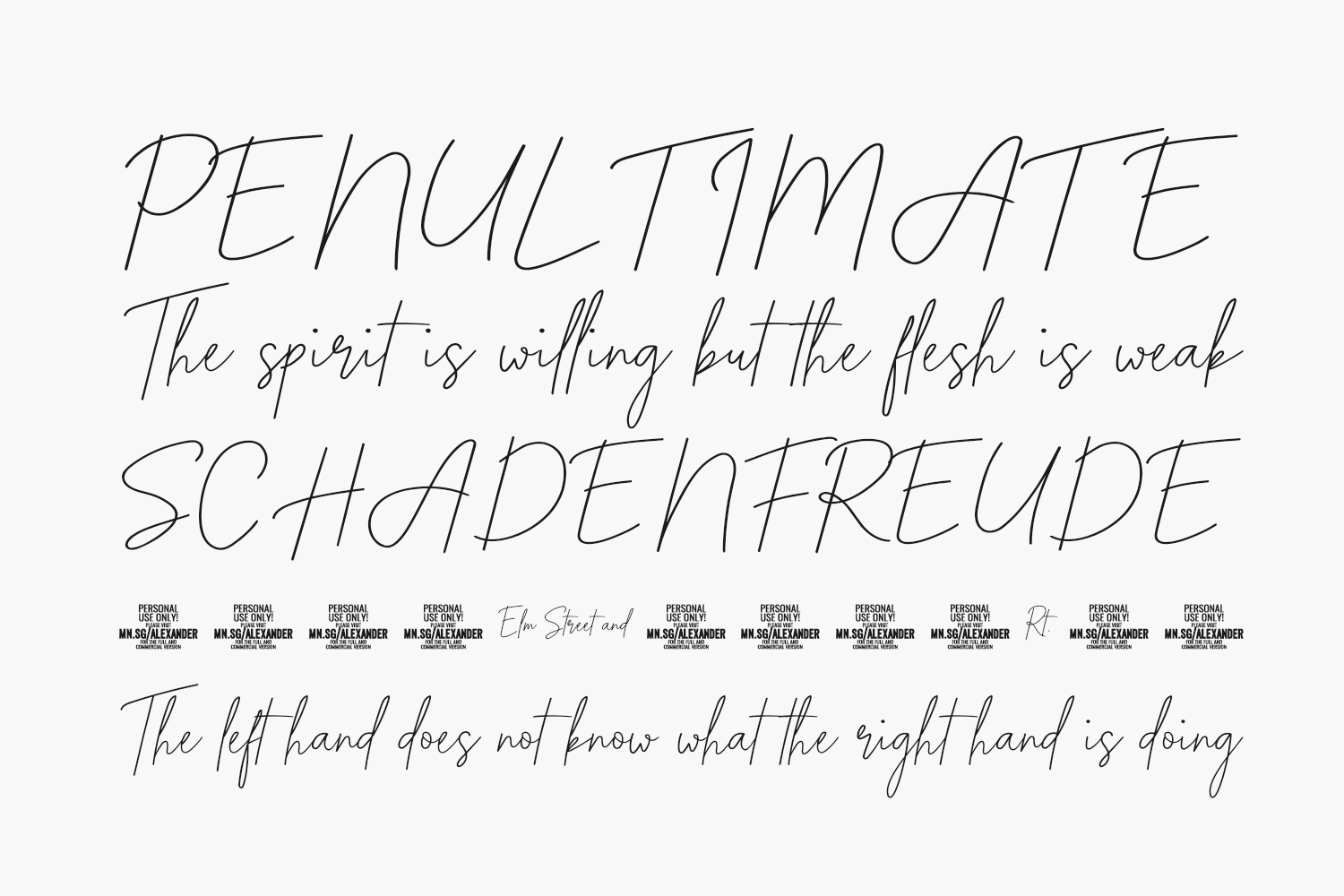
Discover the delightful world of Alexander Lettering Free Font, a font that effortlessly blends timeless charm with a contemporary flair. With its playful yet refined style, this handwritten gem is sure to captivate your senses and leave you enchanted.
Unleash your creativity as you immerse yourself in the authentic allure of Alexander Lettering. Its unique twist on classic handwritten fonts sets it apart, making it the perfect choice for a wide range of creative projects. From invitations to branding, packaging to social media graphics, Alexander Lettering adds a touch of whimsy and sophistication that will make your designs truly memorable. Alexander Lettering Free Font is a demo and free for personal use only. Please purchase the full version for commercial use.